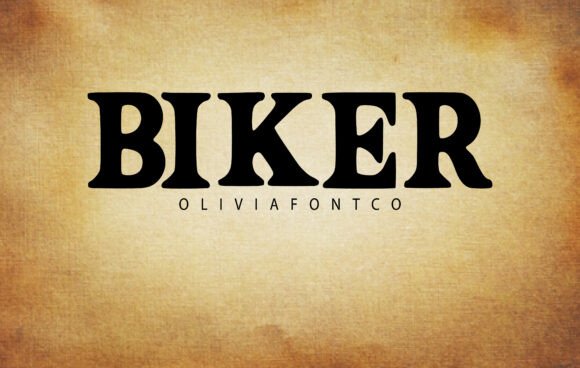
The Biker Font: A Designer’s New Best Friend
I’ll never forget the time I was working on a project for a client who wanted a bold, edgy font to match their brand’s personality. I spent hours scouring the internet for the perfect font, but nothing seemed quite right. That was until I stumbled upon the Biker Font. This font has been a game-changer for me, and I’m excited to share its awesomeness with you! 😊
- ✨ Legibility: The Biker Font is incredibly easy to read, making it perfect for both title and body text.
- ✅ Versatility: This font can be used for a wide range of designs, from magazine headlines to t-shirts, social media posts, branding, wedding invitations, and more.
- 💥 Creativity: The Biker Font has the potential to take your creative ideas to the highest level, making it a true favorite among designers.
While the Biker Font is amazing, there are a few things to keep in mind:
- ⚠️ Limited Ligatures: The Biker Font has limited ligatures, which might be a drawback for some designers.
- 🤔 Not Suitable for Body Text: While it’s legible, the Biker Font might not be the best choice for long blocks of body text due to its bold nature.
The Designer Inspiration Behind the Biker Font
The Biker Font was designed with the biker culture in mind, but its appeal goes far beyond that niche. The designer wanted to create a font that was both tough and elegant, with a unique personality that would stand out in any design.
Q: Is the Biker Font suitable for body text?
A: While it’s legible, the Biker Font might not be the best choice for long blocks of body text due to its bold nature. It’s better suited for titles, headings, and short paragraphs.
Q: Does the Biker Font come with OpenType features?
A: Yes, the Biker Font includes OpenType features, such as stylistic alternates, glyphs, and ligatures. These features allow you to customize the font to suit your design needs.